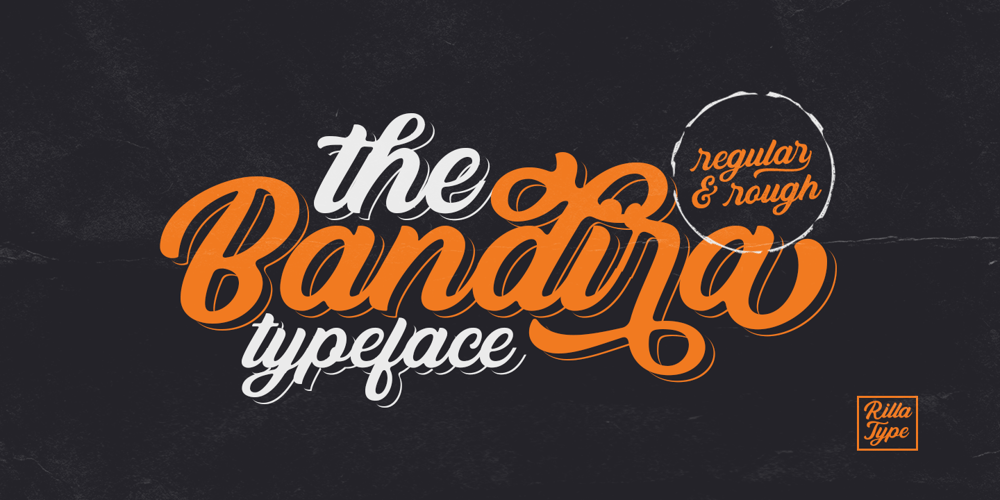
Bandira Script
Bandira Script Font Family was designed by Gustian Agung Asprilla and published by Rillatype. Bandira Script contains 2 styles and family package options. Bandira Script gives you the handcrafted feel that is perfect for logotypes, apparel, invitations, branding, packaging, advertising, and more. This typeface comes in a clean and rough version with uppercase, lowercase, punctuations, symbols and numerals, 06 stylistic set alternate, ligatures, swashes, multi-lingual support and is already PUA encoded. To access the swashes just type _1 … _3 in the end of the word, example Bandira_1, Bandira_2, Bandira_3If you have any other question feel free to reach us at rillatype@gmail.com Thanks.